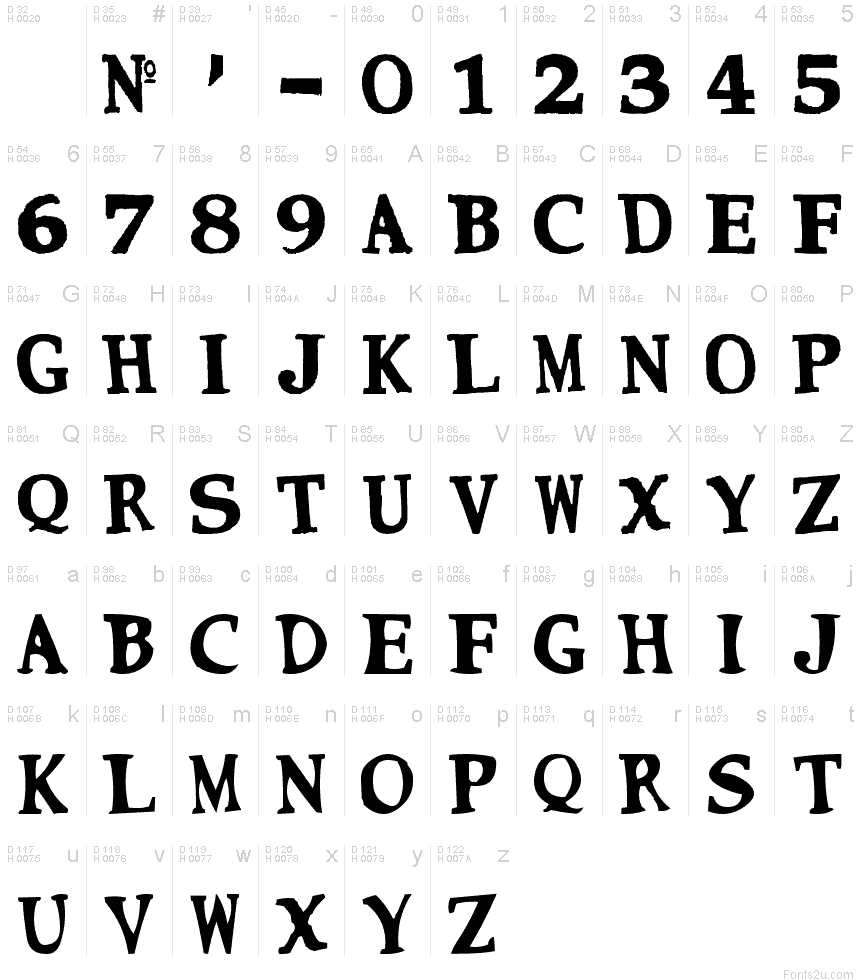
CMON NEAR
CMON NEAR font is a free distorted serif typeface that looks like it’s been stamped, dragged, and slightly misaligned by hand. Chunky letterforms, rough ink textures, and uneven edges give every word a scraped, underground energy, as if it came off a worn letterpress or a tattered gig flyer. The rhythm stays sturdy and readable, but the texture makes each line feel raw and a little unsettling.
Using CMON NEAR, headlines instantly pick up a gritty, analog mood that’s made for horror posters, punk or metal album covers, thriller book jackets, zines, escape-room graphics, and indie game titles. This free font loves large sizes where its grain and wobble can really show. Pair CMON NEAR with a clean, minimal sans-serif for body text to keep layouts legible while the title does all the shouting.